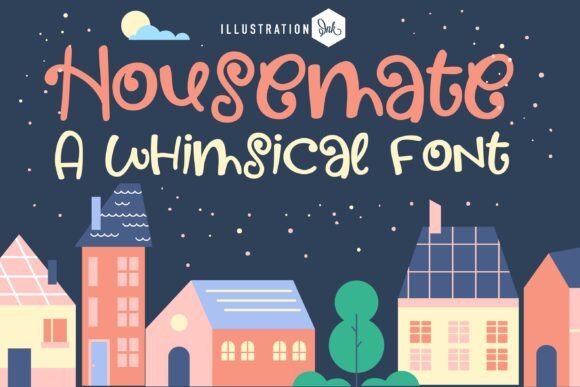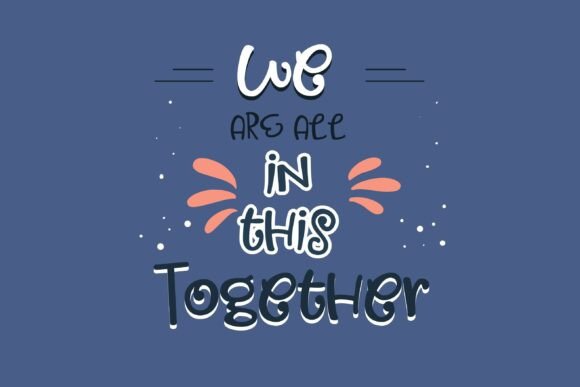
Housemate Font
About the Housemate Font
Introducing the Housemate Font, a beautifully crafted typeface designed to elevate your creative projects. This hand-crafted font is a whimsical sans serif with a bit of a youthful feel.
Housemate Font’s whimsical nature makes it ideal for headlines, short text blocks on posters or packaging, and branding elements where a playful yet approachable feel is desired. It works exceptionally well for children’s products, craft businesses, or brands focusing on a friendly, casual image. Avoid using it for large bodies of text or UI elements; its informal character will hinder readability in such contexts.
Pairing Housemate with a clean sans-serif like Open Sans for body copy creates a strong contrast, balancing the handwritten charm with clear legibility. Alternatively, a classic serif like Garamond could add a touch of sophistication, grounding the playful energy of Housemate.
Its core personality is undeniably youthful and friendly, making it unsuitable for projects demanding seriousness or formality.
Housemate Font Usage Examples
Housemate Font Example